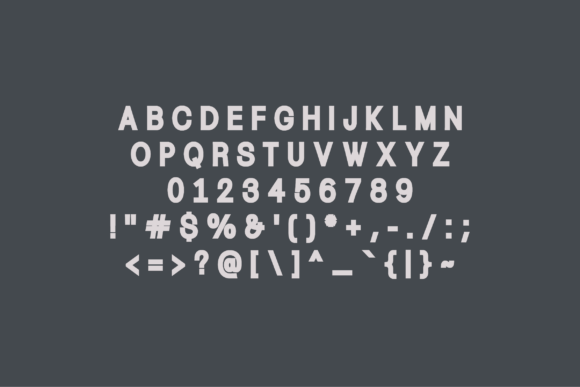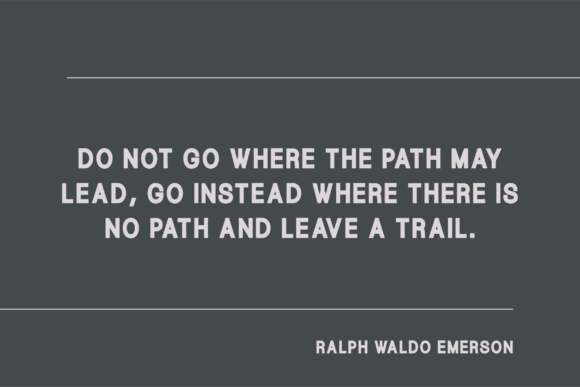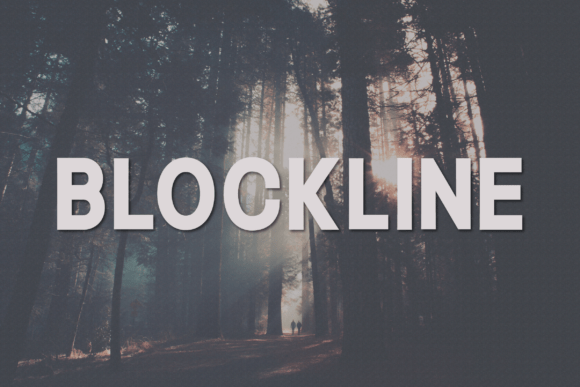
Introducing Blockline Font: Elevate Your Designs with Modern Elegance
Have you ever been in the midst of working on a design project, only to find yourself stuck on the perfect font? I recall a particularly frustrating experience while crafting a wedding invitation for a client. The design was almost complete, but the font just wasn’t right. It was then that I stumbled upon Blockline, a modern, classy sans serif typeface that instantly elevated my design. In this article, we’ll dive into the world of Blockline, exploring its features, uses, and what makes it an excellent addition to your font library.
The Blockline Advantage
Blockline is a sans serif typeface that boasts upper characters, numbers 0-9, and a range of punctuation and symbols. Its versatility makes it perfect for a wide array of projects, including logos, weddings, invitations, quotes, advertisements, print, magazines, and more! But what truly sets Blockline apart?
What I Love About Blockline
- ✨ Clean and Modern Aesthetic: Blockline’s sleek design makes it perfect for contemporary projects that demand a fresh look.
- ✅ Extensive Character Set: With upper characters, numbers, and a variety of punctuation and symbols, Blockline offers everything you need for most design projects.
- 💡 Highly Versatile: Whether you’re working on a logo, invitation, or magazine, Blockline adapts seamlessly to different contexts.
While Blockline is an exceptional font, there are a few minor considerations to keep in mind:
- 🤔 Limited Serif Options: As a sans serif font, Blockline might not be the best fit for projects requiring a traditional or serif look.
- ⚠️ Glyph Availability: Some advanced glyphs or special characters might require additional setup in certain design platforms.
The Story Behind Blockline
The creation of Blockline was inspired by the need for a clean, modern sans serif font that could serve a wide range of design purposes. The designer aimed to craft a typeface that was not only aesthetically pleasing but also highly versatile and functional. Through meticulous attention to detail and a passion for typography, Blockline was born.
| What makes Blockline suitable for logos? | Blockline’s clean and modern aesthetic, combined with its versatility, makes it an excellent choice for logos that need to be both contemporary and professional. |
| Can I use Blockline for body text in magazines? | While Blockline is primarily designed for headings and titles, its legibility makes it suitable for short passages of body text. However, for longer texts, a serif font might be more appropriate. |
| Is Blockline available in different weights? | Blockline offers a range of weights, making it adaptable for various design needs, from light headings to bold statements. |
In conclusion, Blockline is a versatile and modern sans serif typeface that can elevate a wide range of design projects. Its clean aesthetic, extensive character set, and adaptability make it an excellent addition to any designer’s font library. Whether you’re working on a logo, invitation, or magazine, Blockline is sure to make a lasting impression.